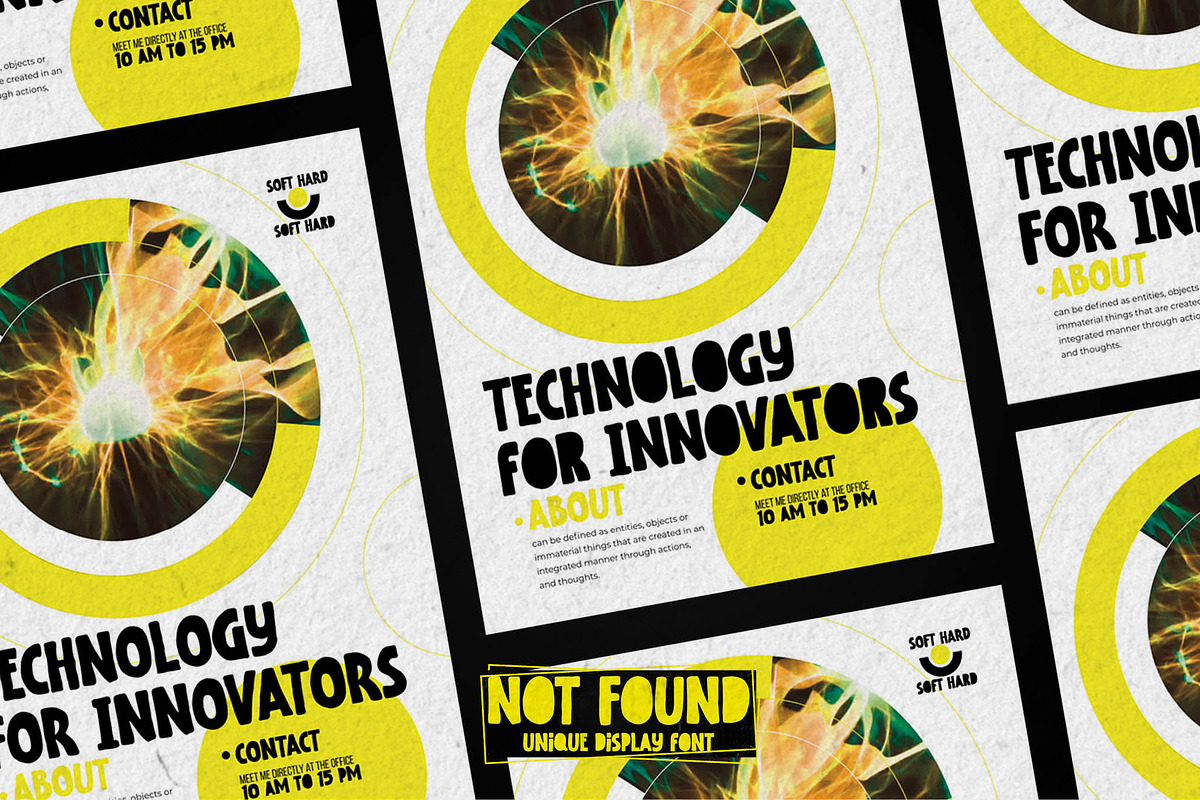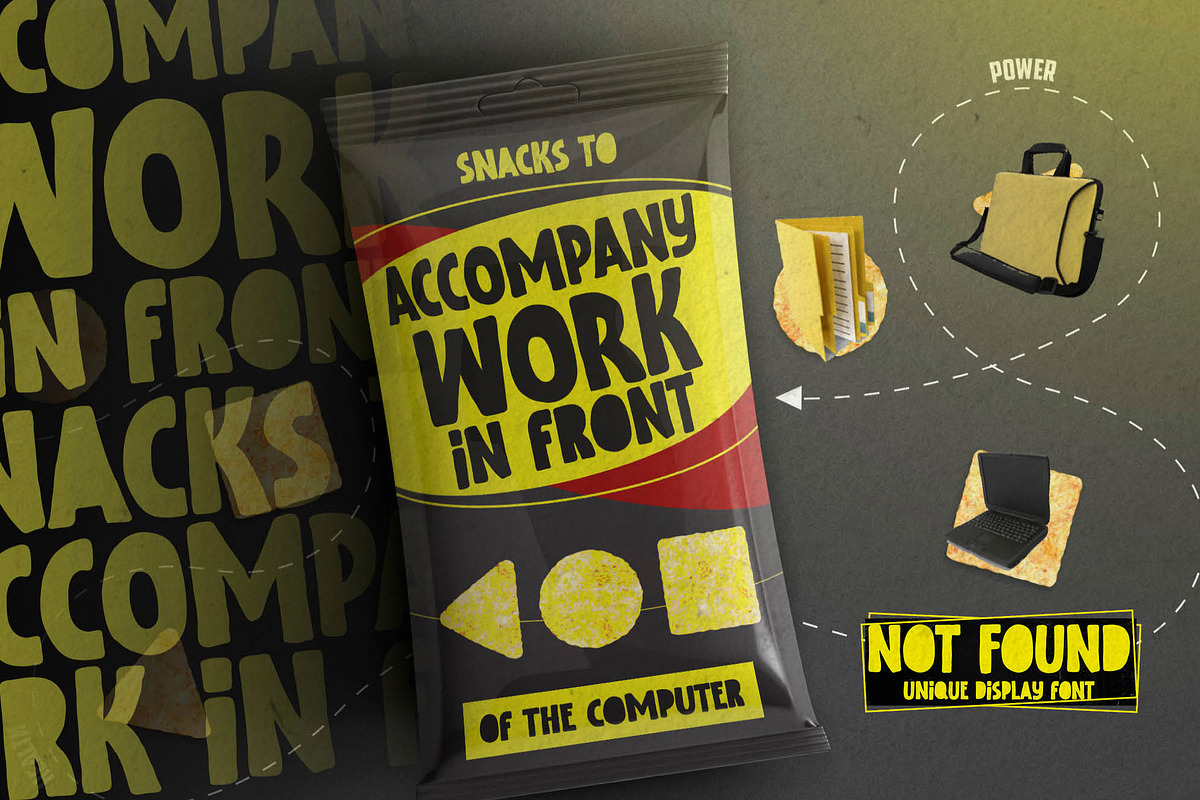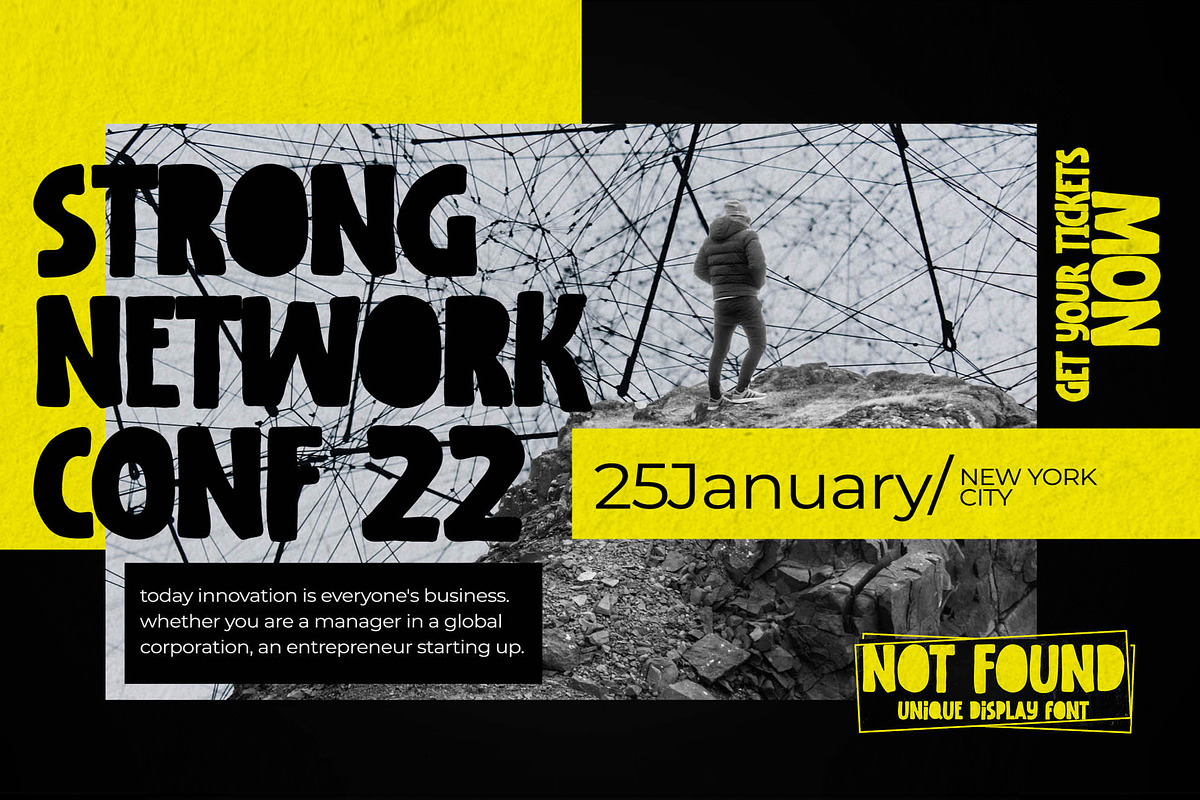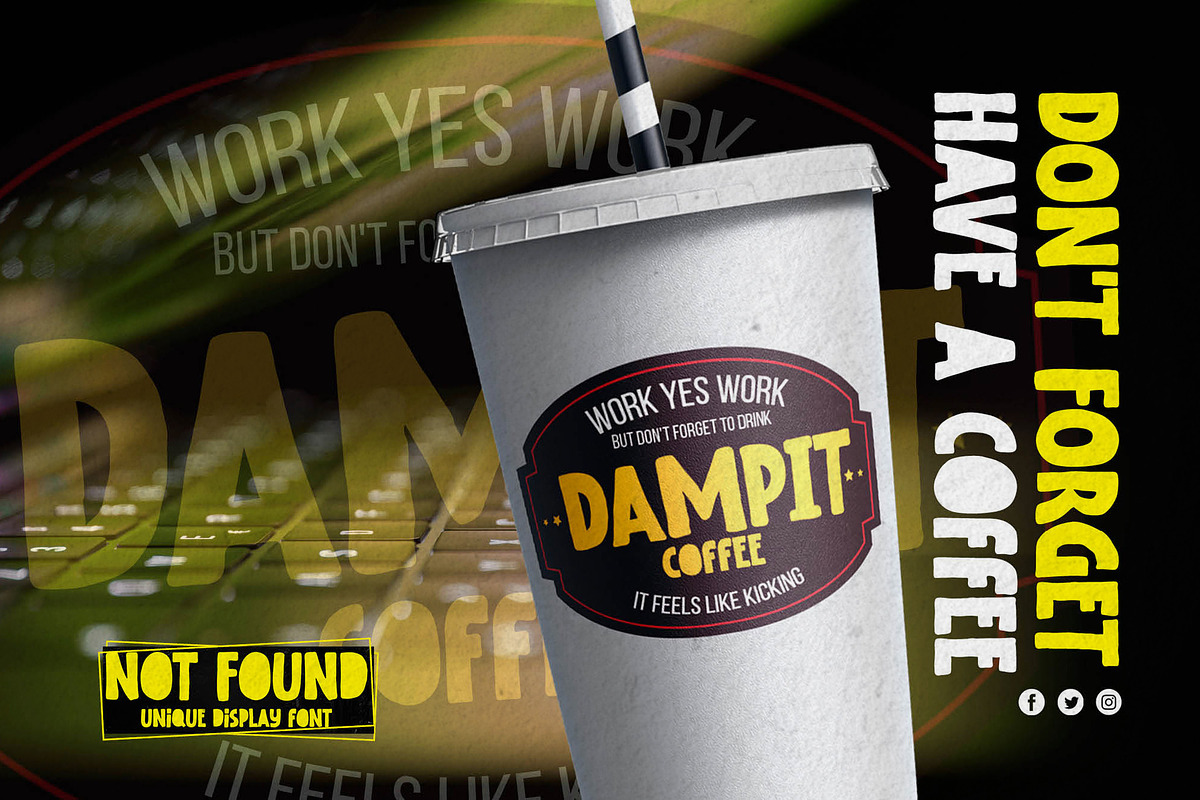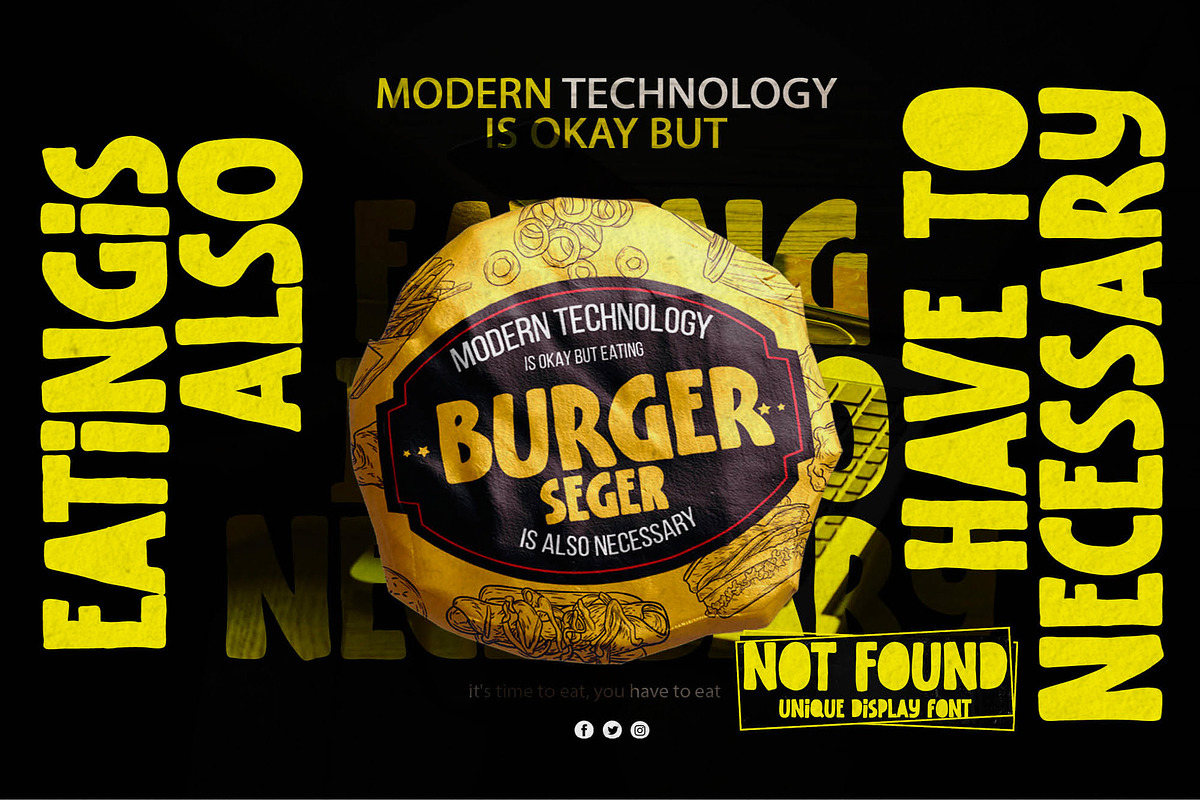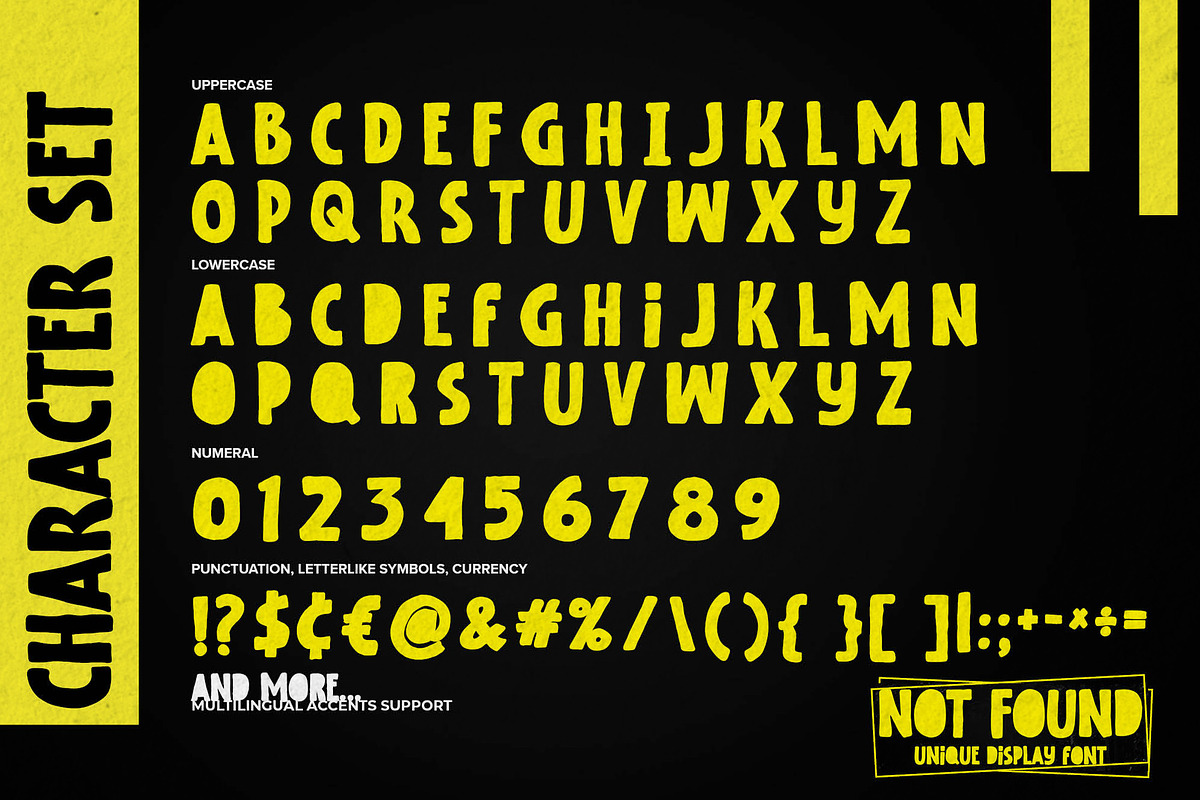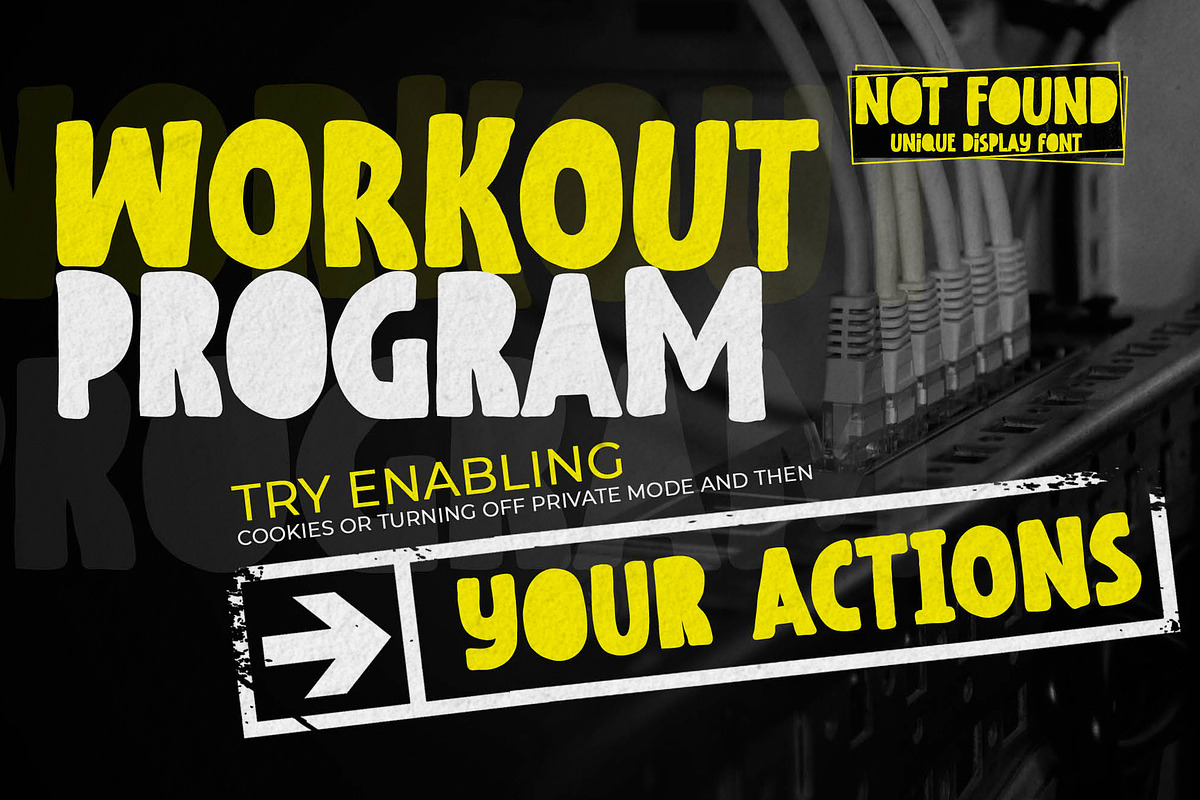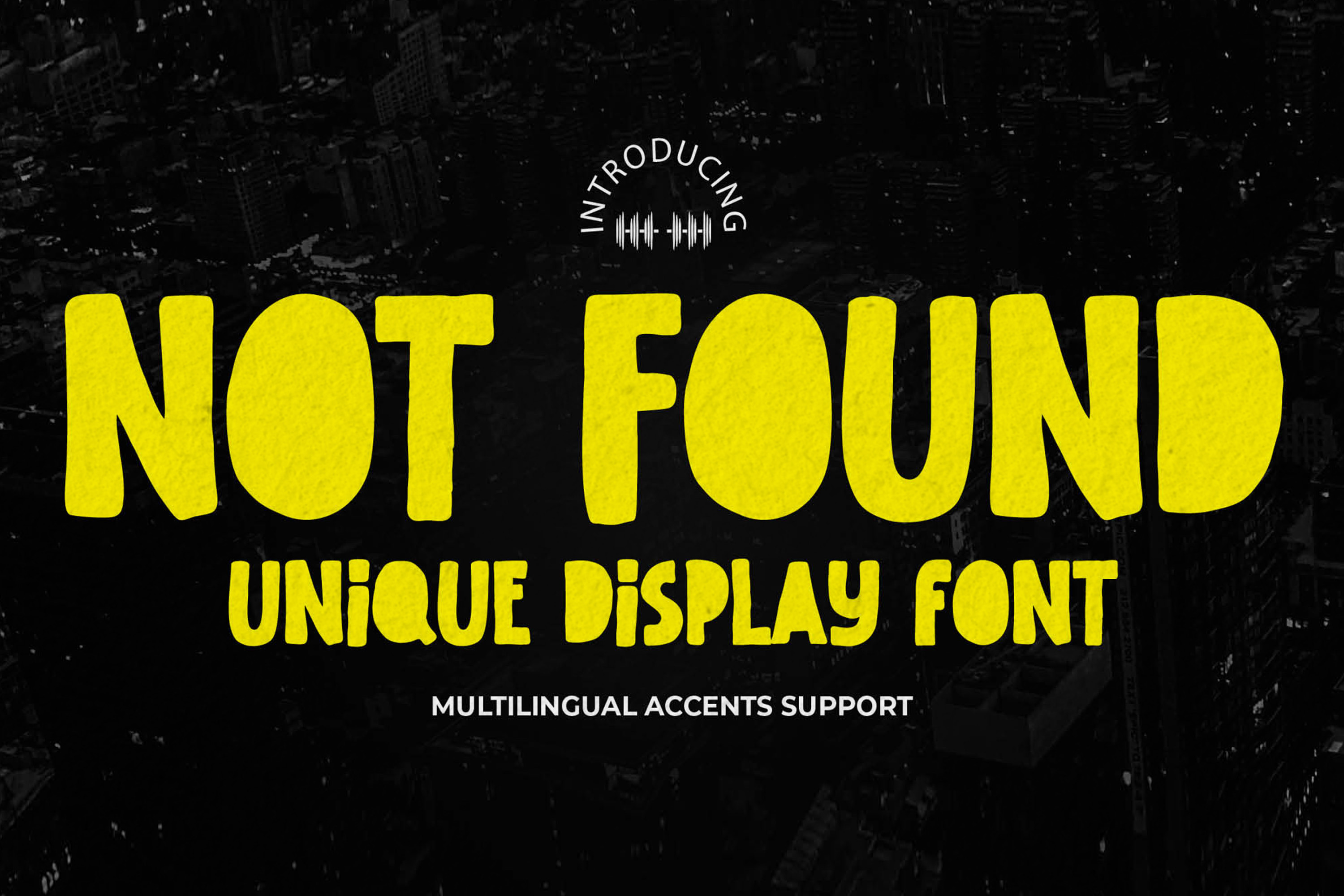
Not Found - Unique Display Font
Hello Everyone, Introduce our new collection Font Not Found This is a Unique Display Font that is written casually and quickly.this a Authentic Style and classy style Inspired by famous logos of Technology and brands that have very strong characteristics, this font is great for your creative projects such as watermark on photography, and perfect for logos & branding, invitation,advertisements,product designs, stationery, wedding designs,label ,product packaging, special events or anything that need handwritting taste.
Font Not Found has charming, authentic and relaxed characteristic more natural look to your text with a more natural look to your text. What's Included :